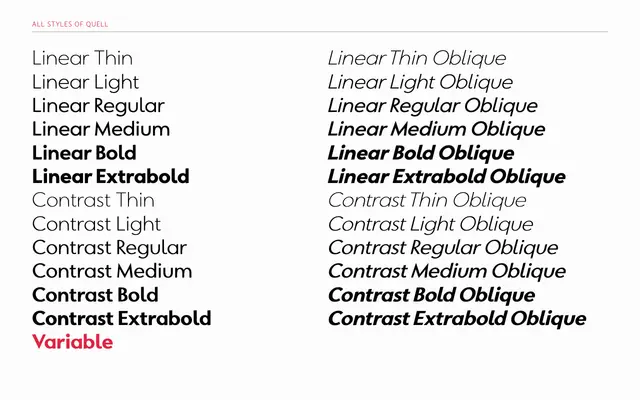
A sans-serif in two subfamilies — monolinear and contrasted stroke widths — pitched at identity, signage and editorial work across an extensive language range.
Quell splits into Linear and Contrast subfamilies, where the Linear variant keeps strokes at even thickness for direct, imperative settings, and the Contrast variant introduces stroke width variation for a warmer, more expressive register. Both run across six weights from Thin to Extrabold with oblique companions, and a variable font is included. Language coverage is unusually broad, spanning hundreds of Latin-script languages with strong extended diacritic support.
Quell presents as a humanist sans with two distinct stroke-contrast subfamilies: a monolinear cut and a contrasted cut that introduces stroke width variation for a warmer, more organic quality.